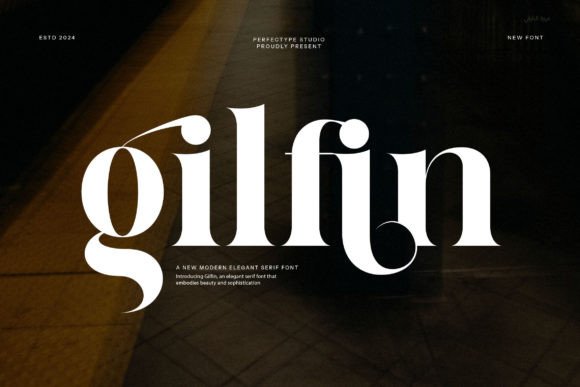
Gilfin Font: The Epitome of Elegance and Luxury in Typography
In the realm of typography, fonts play a pivotal role in conveying the essence and aesthetic of a design. Among the myriad of fonts available, the Gilfin font stands out as a beacon of elegance and luxury. This serif font, meticulously crafted with an eye for detail, is perfect for a wide array of design needs, ranging from branding projects and logos to social media posts and product packaging. The hallmark of the Gilfin font lies in its beautiful and unique ligature and alternate options, which set it apart from more conventional typefaces.
Key Features of Gilfin Font
- Elegance and Luxury: The Gilfin font is designed with a focus on elegance and luxury, making it an ideal choice for high-end designs.
- Serif Font: As a serif font, Gilfin adds a touch of sophistication and classic appeal to any design.
- Unique Ligatures and Alternates: The font comes equipped with numerous ligatures and alternate characters, allowing for a high degree of customization and creativity.
- Versatility: Gilfin is versatile and can be used across various platforms and design projects, ensuring consistency in your brand’s visual identity.
- High Readability: Despite its elegant design, Gilfin maintains a high level of readability, making it suitable for both digital and print media.
Ideal Applications for Gilfin Font
The versatility of the Gilfin font makes it an excellent choice for a multitude of design applications. Here are some areas where Gilfin truly shines:
- Branding Projects: Establish a luxurious brand image with Gilfin, perfect for high-end brands looking to make a statement.
- Logos: Create a memorable logo with Gilfin’s unique characters that can help your brand stand out.
- Social Media Posts: Elevate your social media presence with elegant and engaging posts that reflect your brand’s luxury appeal.
- Advertisements: Whether it’s print or digital ads, Gilfin can help your advertisement convey a message of sophistication and elegance.
- Labels and Product Packaging: For luxury products, Gilfin can add a touch of class to your packaging, enhancing the unboxing experience.
- Photography and Wedding Designs: Use Gilfin in photo titles, captions, or wedding invitations to add an elegant flair.
- Watermarks: Protect your images with a watermark that exudes elegance and sophistication.
- Invitation and Product Designs: Perfect for high-end event invitations or product launches, Gilfin can elevate the design to new heights.
- Stationery: From business cards to letterheads, Gilfin can bring a level of luxury to your corporate stationery.
Tips for Using Gilfin Font Effectively
To maximize the impact of the Gilfin font in your designs, consider the following tips:
- Pairing: Experiment with pairing Gilfin with sans-serif fonts for a contrasting look that highlights its serif elegance.
- Size Matters: Use Gilfin in various sizes to create visual hierarchy in your designs, ensuring that headings and subheadings stand out.
- Color Selection: Stick to a limited color palette that complements the luxury feel of Gilfin. Neutral colors like black, white, and gold can work exceptionally well.
- Experiment with Ligatures: Take advantage of Gilfin’s ligature options to add a unique touch to your text and make it more visually appealing.
The Gilfin font is a powerful tool in the world of design, offering a perfect blend of elegance, luxury, and versatility. Its wide range of applications, from branding and advertising to packaging and stationery, makes it an invaluable asset for designers looking to create high-end visuals. By incorporating Gilfin into your design projects, you can ensure that your work stands out with a touch of sophistication and class. Whether you’re aiming to elevate your brand’s image or simply looking for a font that exudes luxury, Gilfin is an excellent choice that can meet and exceed your expectations.
In conclusion, the Gilfin font is not just a typeface; it’s an experience. It brings with it an air of elegance and luxury that can transform your designs, making them more engaging and memorable. With its comprehensive features and wide applicability, Gilfin is poised to become a favorite among designers and brands looking to make a lasting impression.